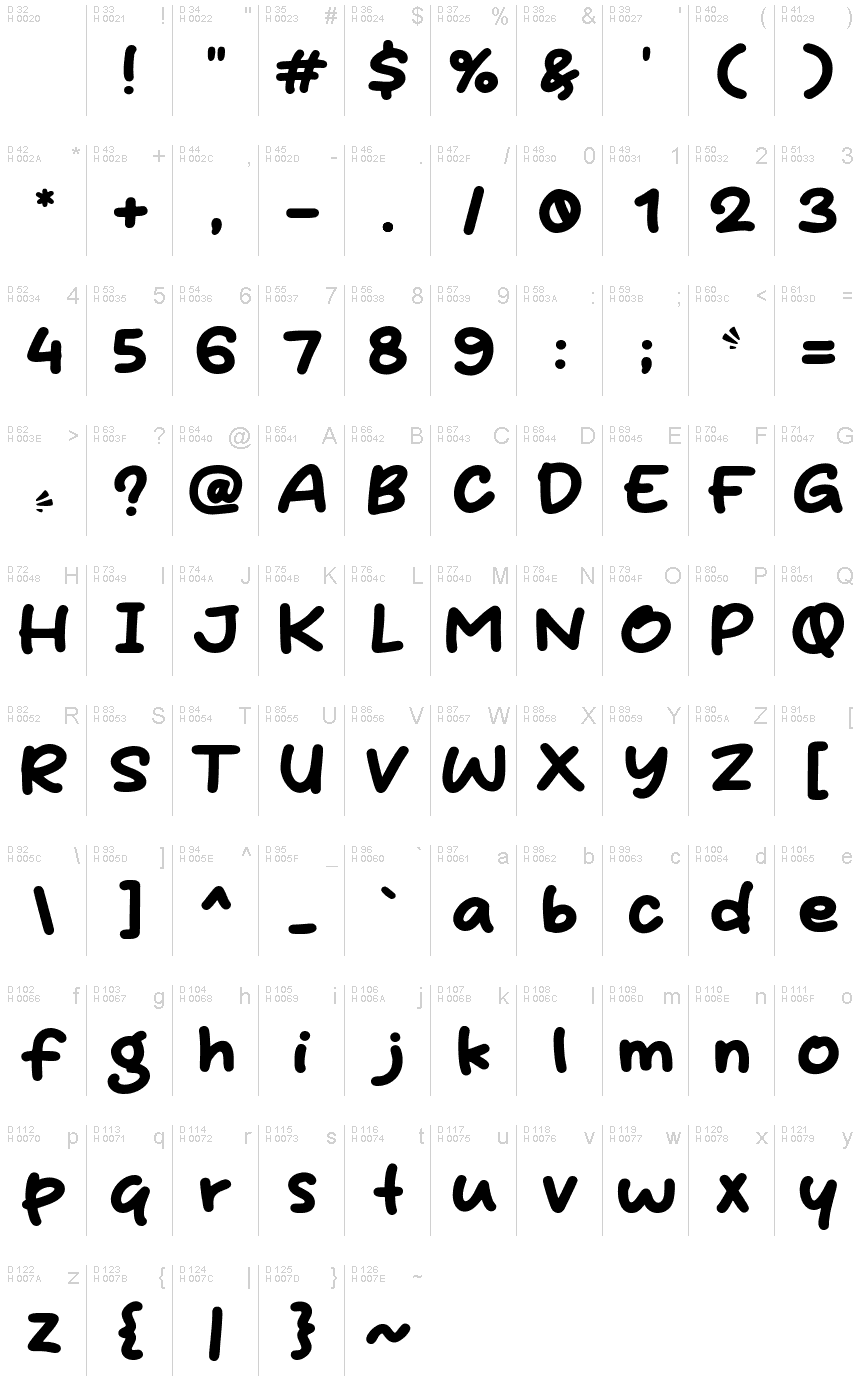
Best Sugar
Best Sugar is a delightful, semi-bold handwritten font designed by Khurasan. Its semi-expanded width and comic style touch make it perfect for a variety of projects, ranging from children's books to playful product packaging. Whether you're designing a whimsical website or creating fun-filled social media graphics, Best Sugar has got you covered. Its unique charm will bring your designs to life and add a touch of personality that will capture the hearts of your audience. So go ahead and give this playful typeface a try – we promise you won't be disappointed!